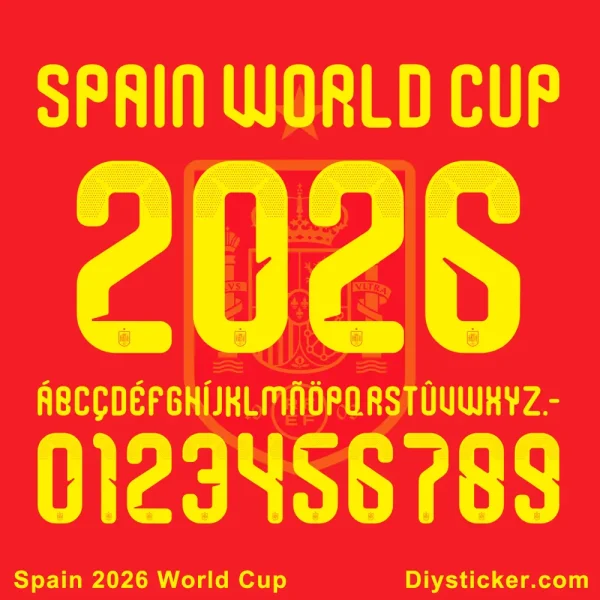
Official Style Spain 2026 World Cup Exclusive Font download. Features a bold, geometric design. Includes all numbers (0-9) and characters with versatile file formats: TTF, OTF (Installable Fonts), AI, CDR, PDF (Vector Files). Essential for La Roja jersey customization.
Capture the unique look of La Roja with this high-quality font package, matching the official style used on the Spain 2026 World Cup jerseys. Unlike the standard Adidas World Cup font, Spain is set to receive an exclusive typeface, continuing their trend from previous tournaments. This custom design features a bolder, more geometric shape with distinctive cuts and angles, making it a must-have for an authentic jersey.